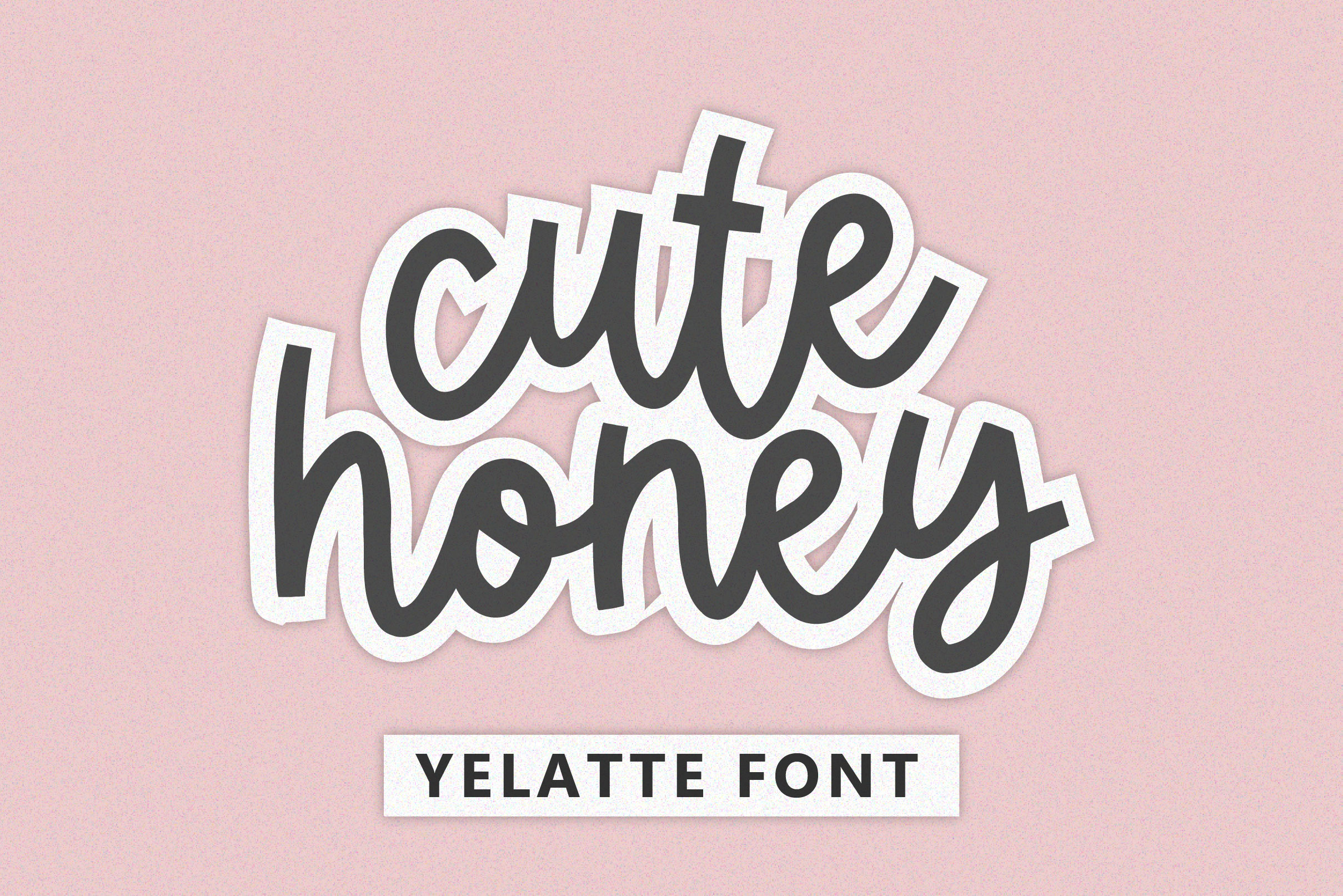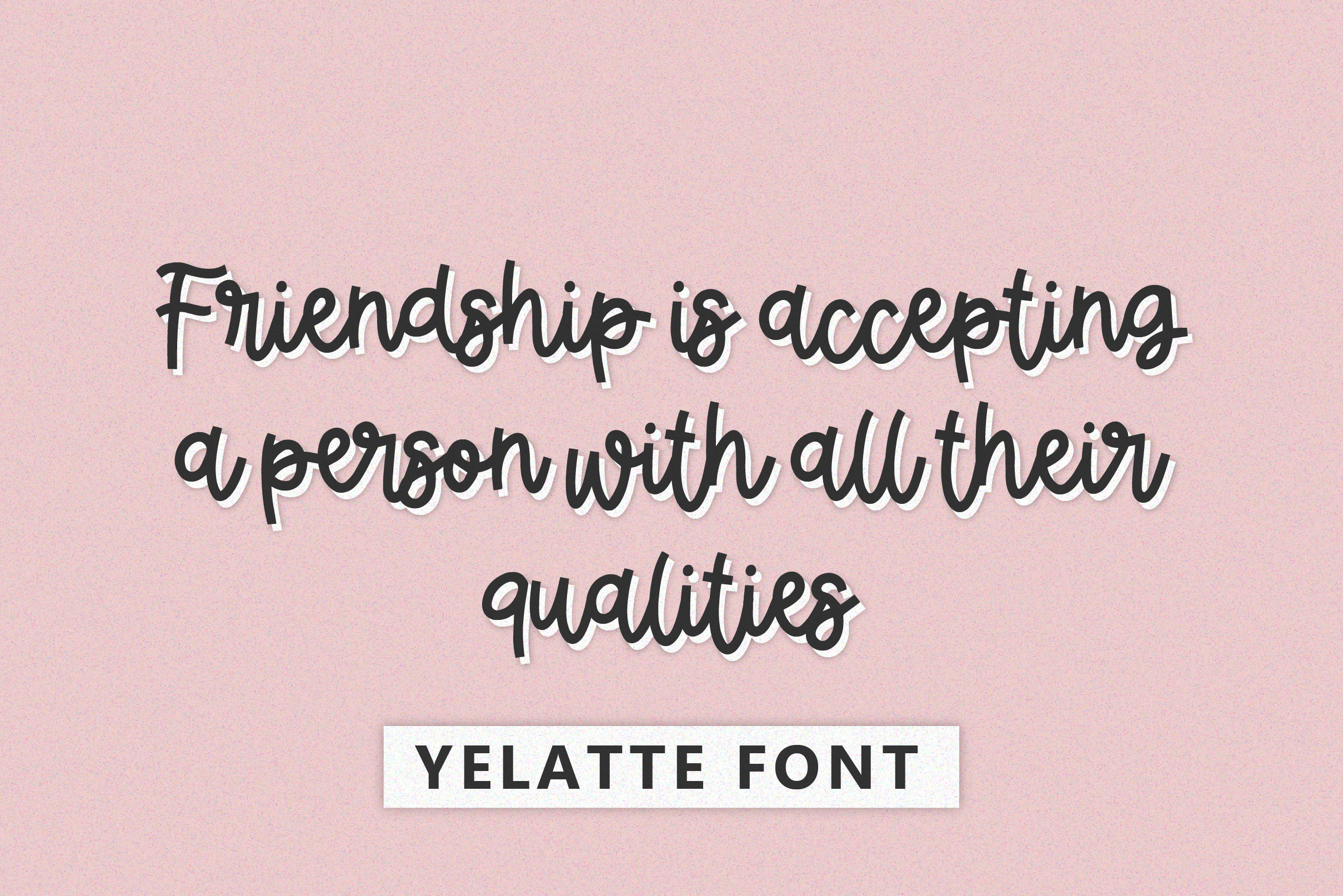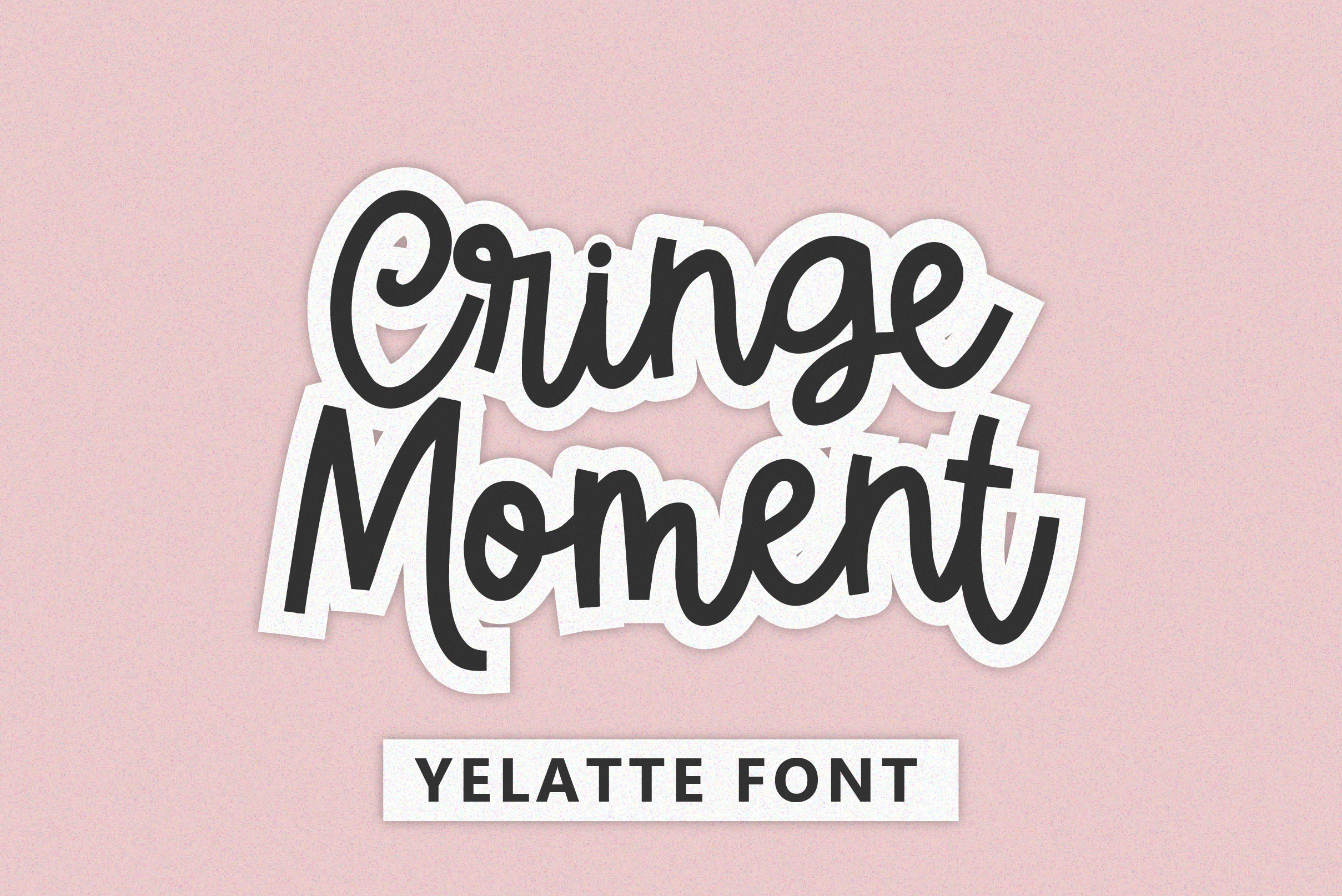
Yelatte Font
Yelatte Handwritten Font is a handwritten script font with a bouncy baseline. Unapologetically feminine, Bellissimi conveys a confident and romantic personality. It’s equipped with a set of stylish ligatures and easily recaptures the look cursive handwriting.
– Alternate Letters, Ligature & Swash/Tail